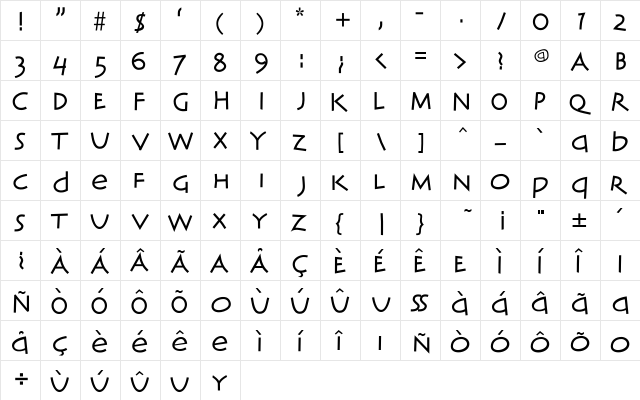
AIClassicIngeniousBold Bold
Design Context for AIClassicIngeniousBold Typeface
AIClassicIngeniousBold has the warm character of retro typography — evoking diners, record sleeves, and the golden age of print advertising. Its bold stroke weight gives it real presence on the page.
Font Pairing: Combine AIClassicIngeniousBold with a simple slab or neutral sans — period-accurate companions reinforce the vintage feel without competing for attention.
Pro Tip: Use AIClassicIngeniousBold for headlines and pull quotes rather than body copy — its personality is best appreciated in short, focused bursts.